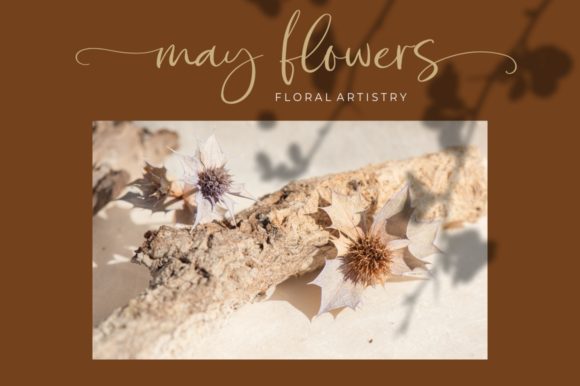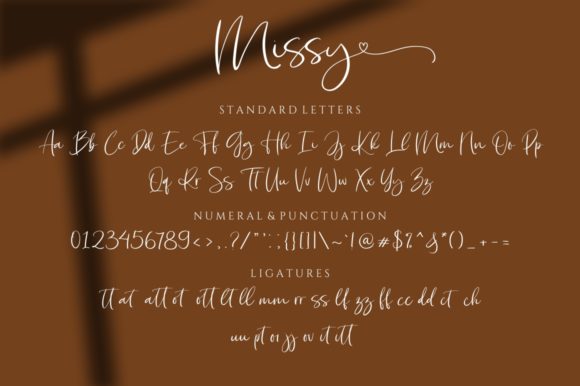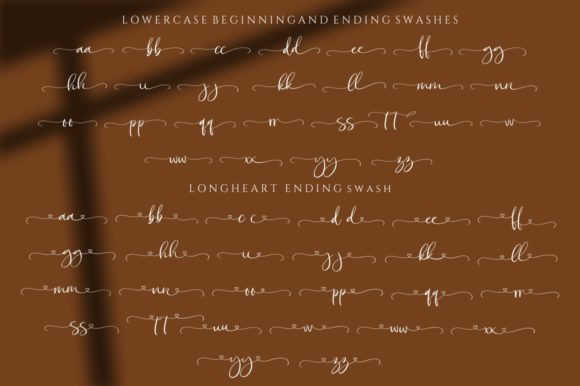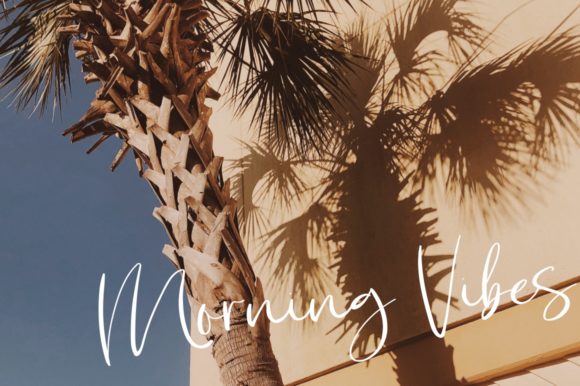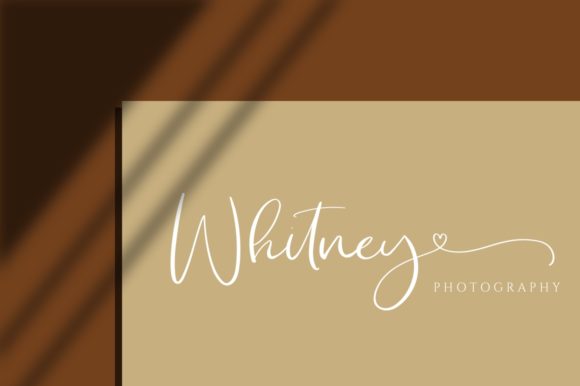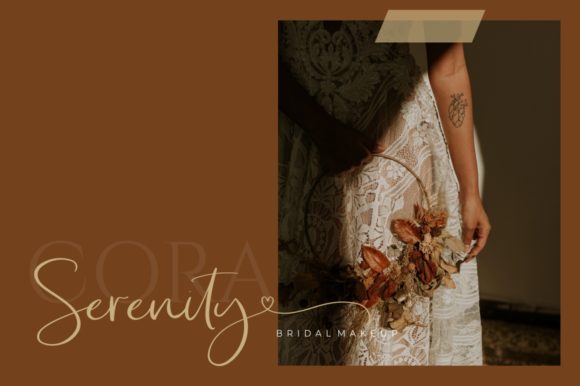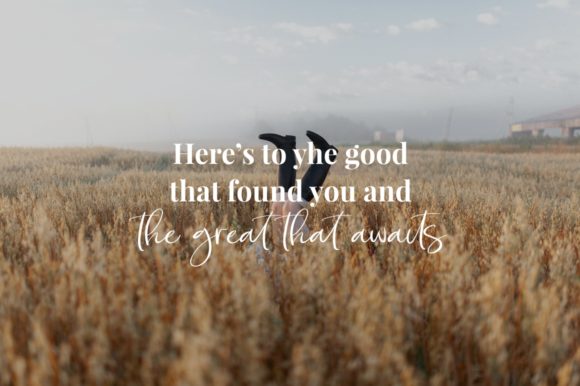
Missy Font
About Missy Font
Missy is a flowing handwritten font. It maintains its classy calligraphic influences while feeling contemporary and fresh. Fall in love with it and bring your projects to the highest levels!